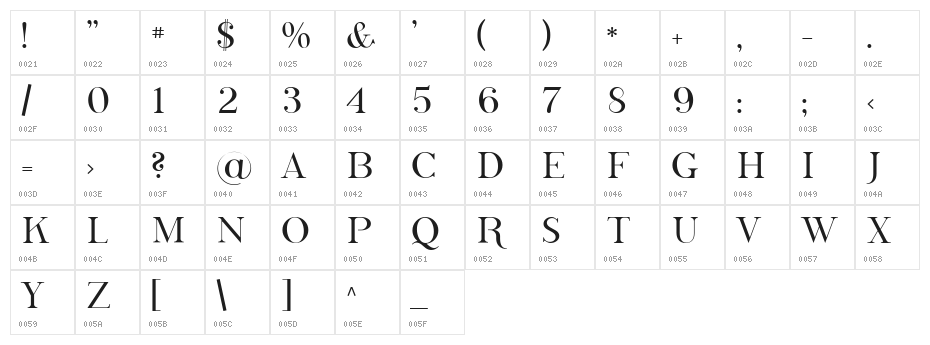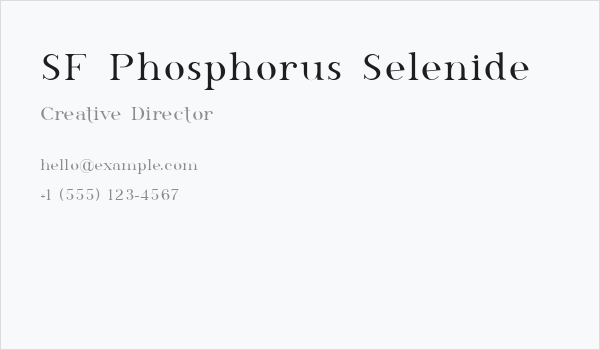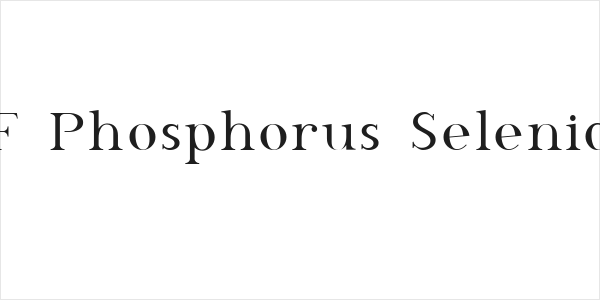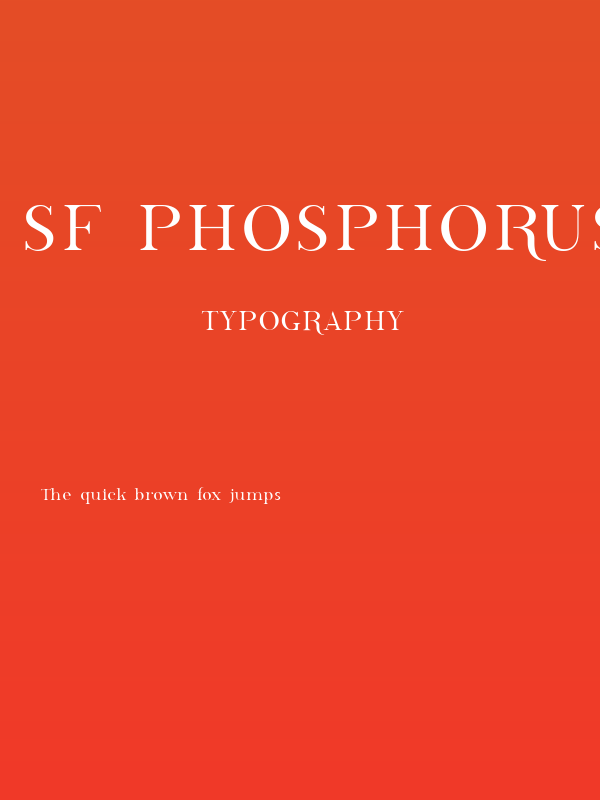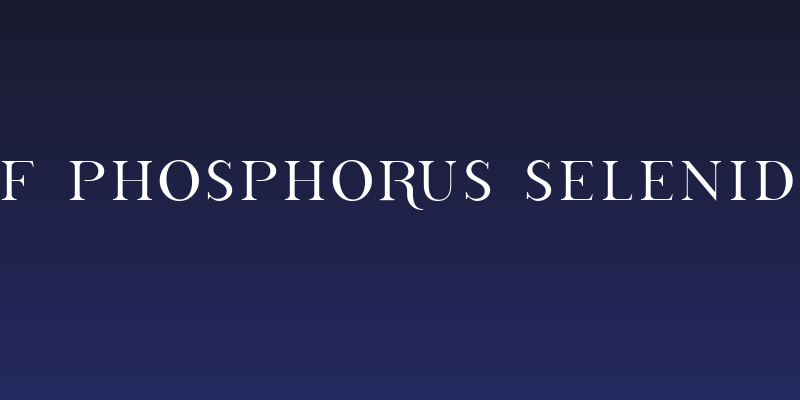
SF Phosphorus Selenide Font
SF Phosphorus Selenide Description
This font features a classic serif design with elegant and refined strokes. The uppercase letters exhibit a strong presence with slightly flared serifs, giving them a timeless and authoritative look. The lowercase letters maintain a consistent style, with smooth curves and balanced proportions, enhancing readability. The numerals are clear and distinct, with a traditional appearance that complements the overall style. Special characters are well-integrated, maintaining the font's sophisticated aesthetic. The font's high contrast in stroke thickness adds to its elegance, making it suitable for formal and professional applications.